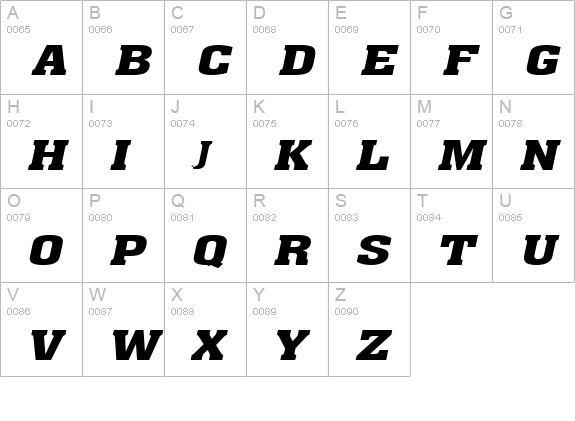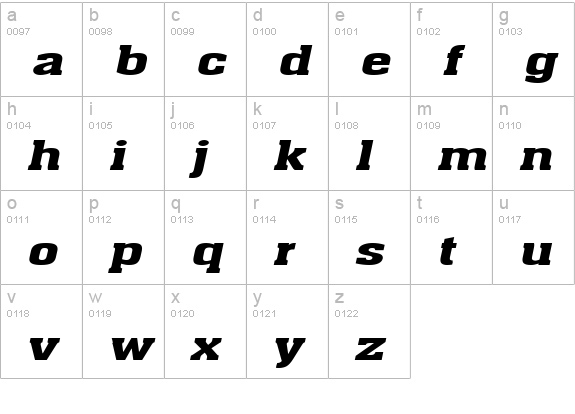
Ache Extended BoldItalic Font Details
Ache Extended BoldItalic is a distinctive, extended-width variant in the Ache typeface family \xE2\x80\x94 well suited to design and typography projects.
Ache Extended BoldItalic font exudes a sense of modernity and sophistication with its sleek design and sharp angles. This bold and italic typeface is perfect for making a strong statement in your projects, whether it's for headings, logos, or branding materials. The Ache Extended BoldItalic font is not only visually striking but also versatile, as it can be used in a variety of design applications to add a touch of elegance and style. Its extended letterforms give it a unique and distinctive look that will surely make your text stand out. And the best part? Ache Extended BoldItalic font is available for free download at FontsMarket.com, making it easily accessible to all designers and creatives looking to elevate their typography game without breaking the bank. So why wait? Download this stunning font today and take your designs to the next level!